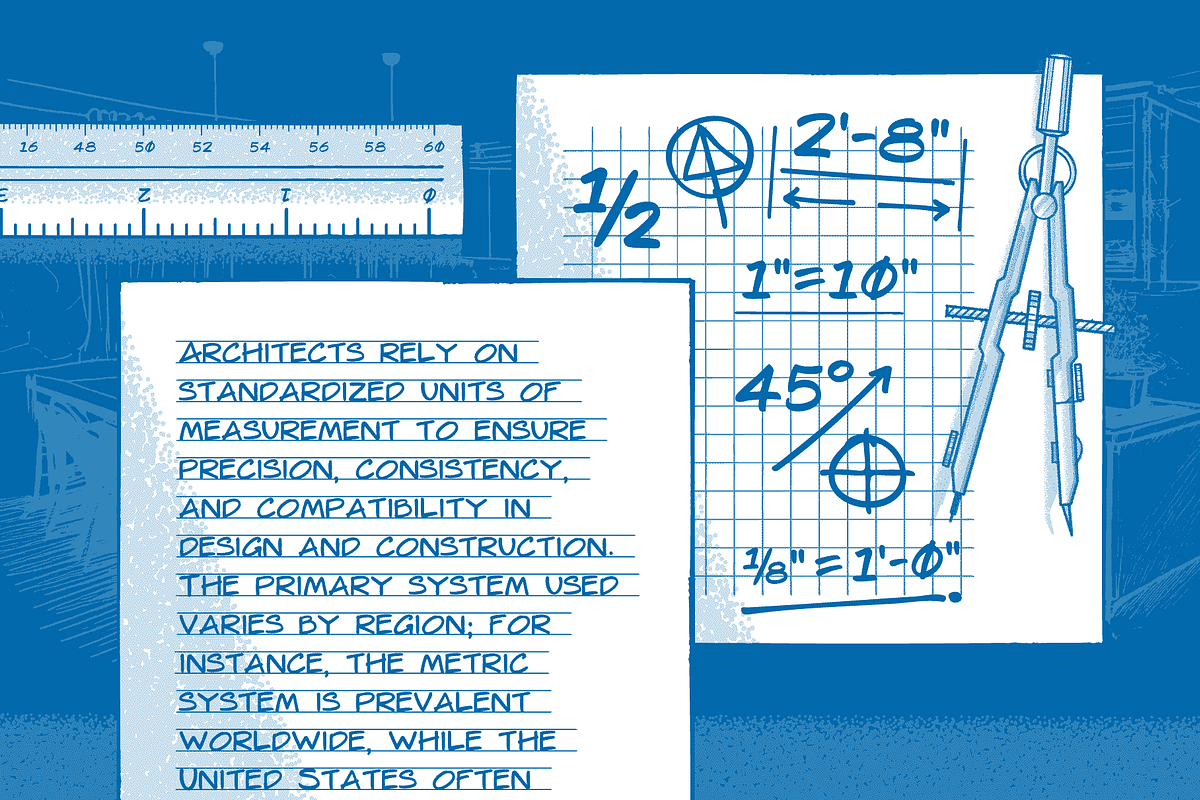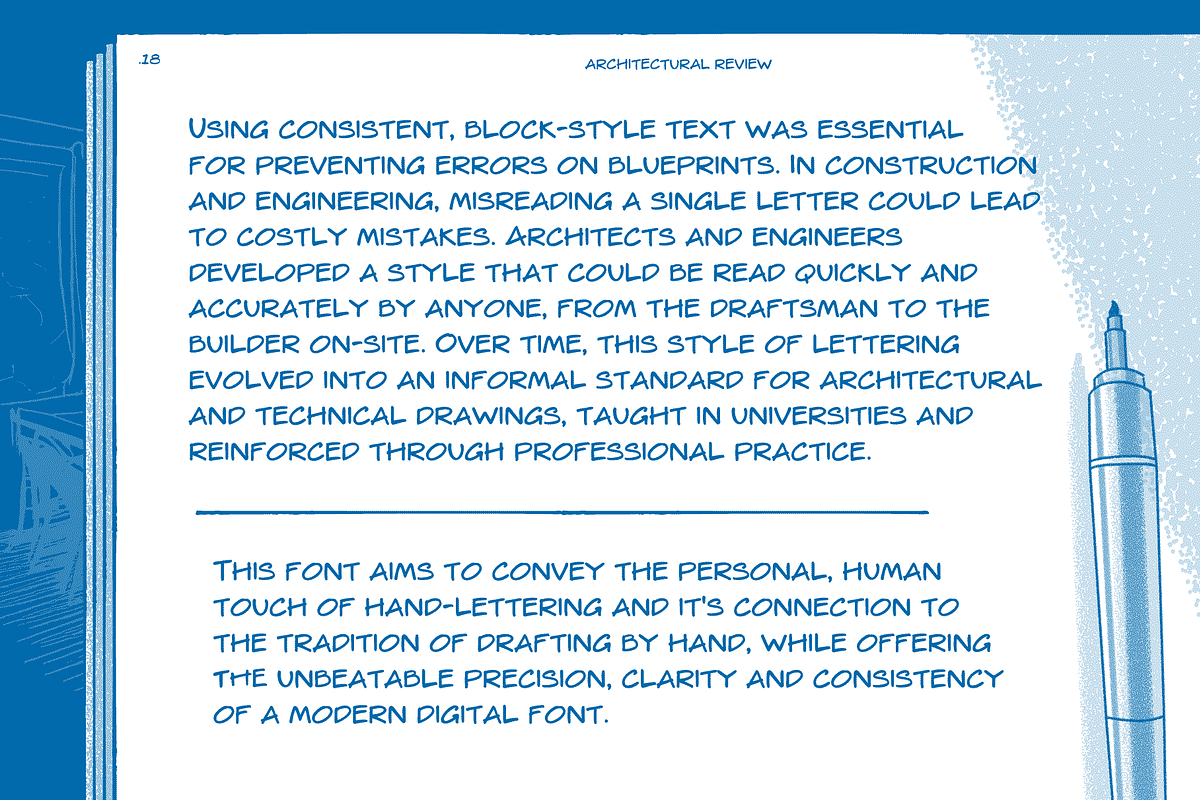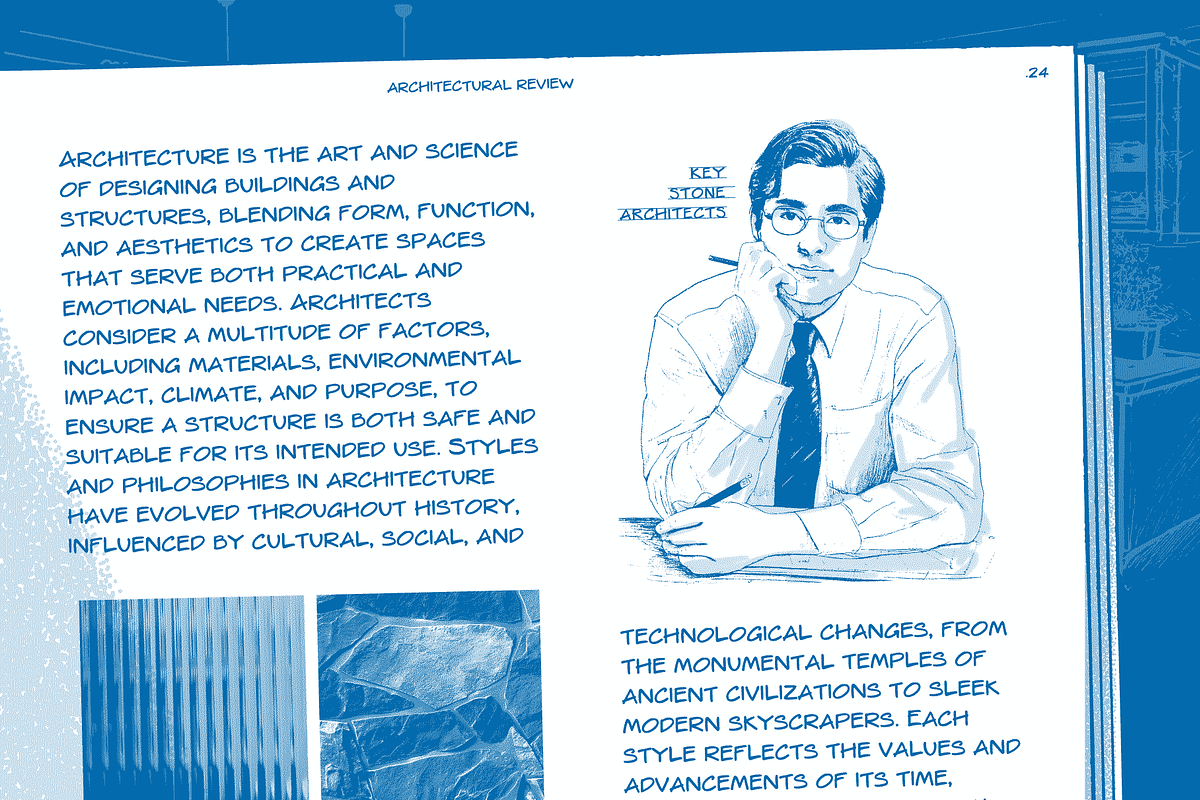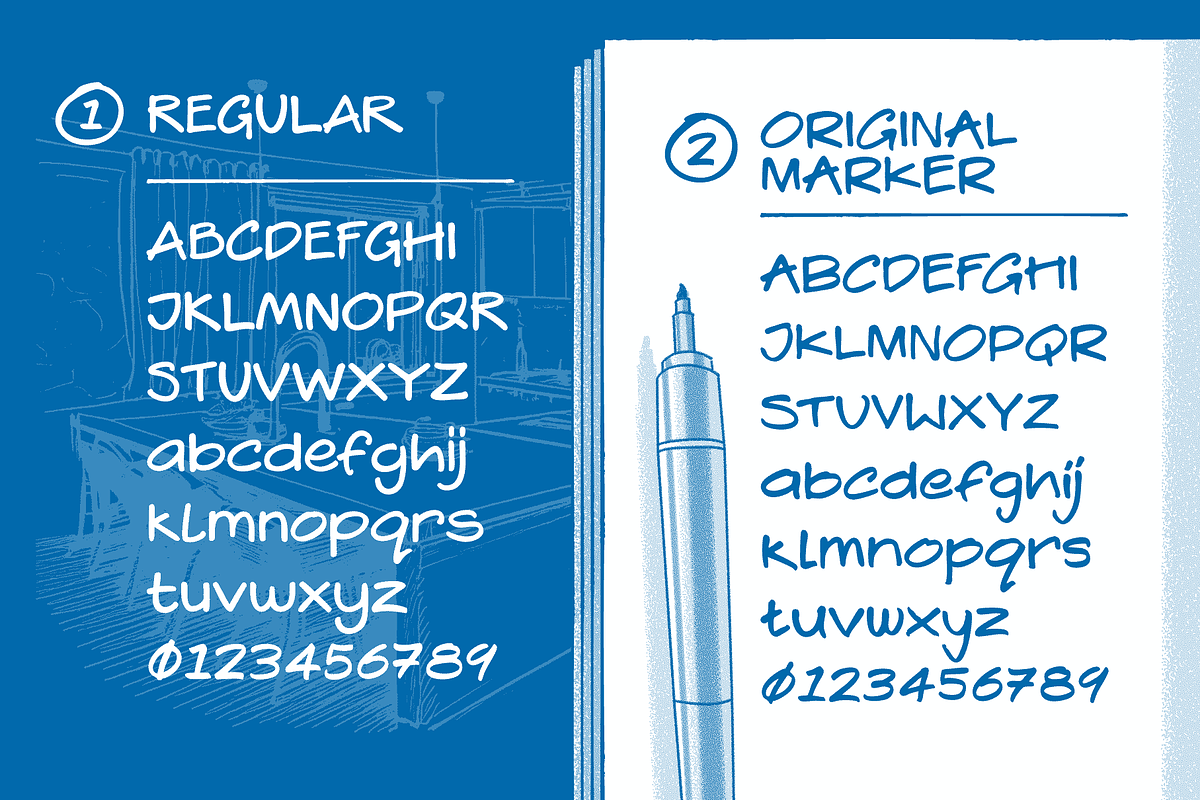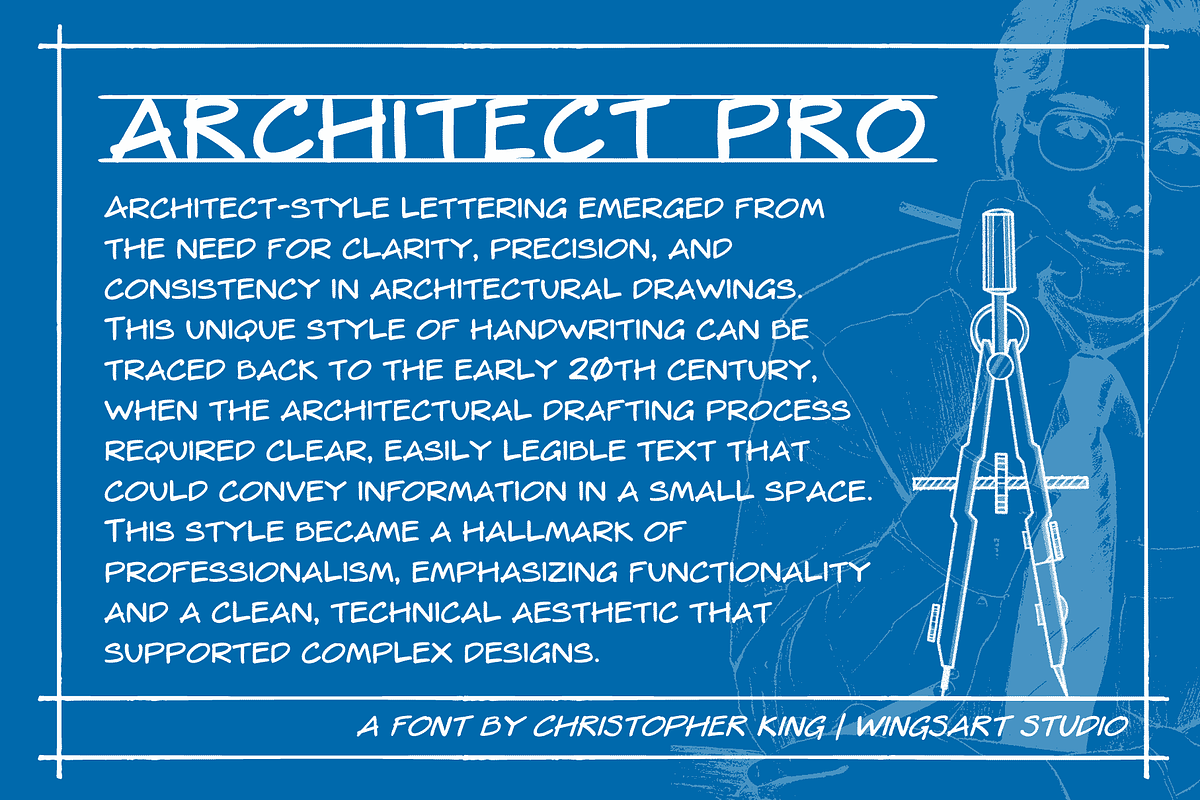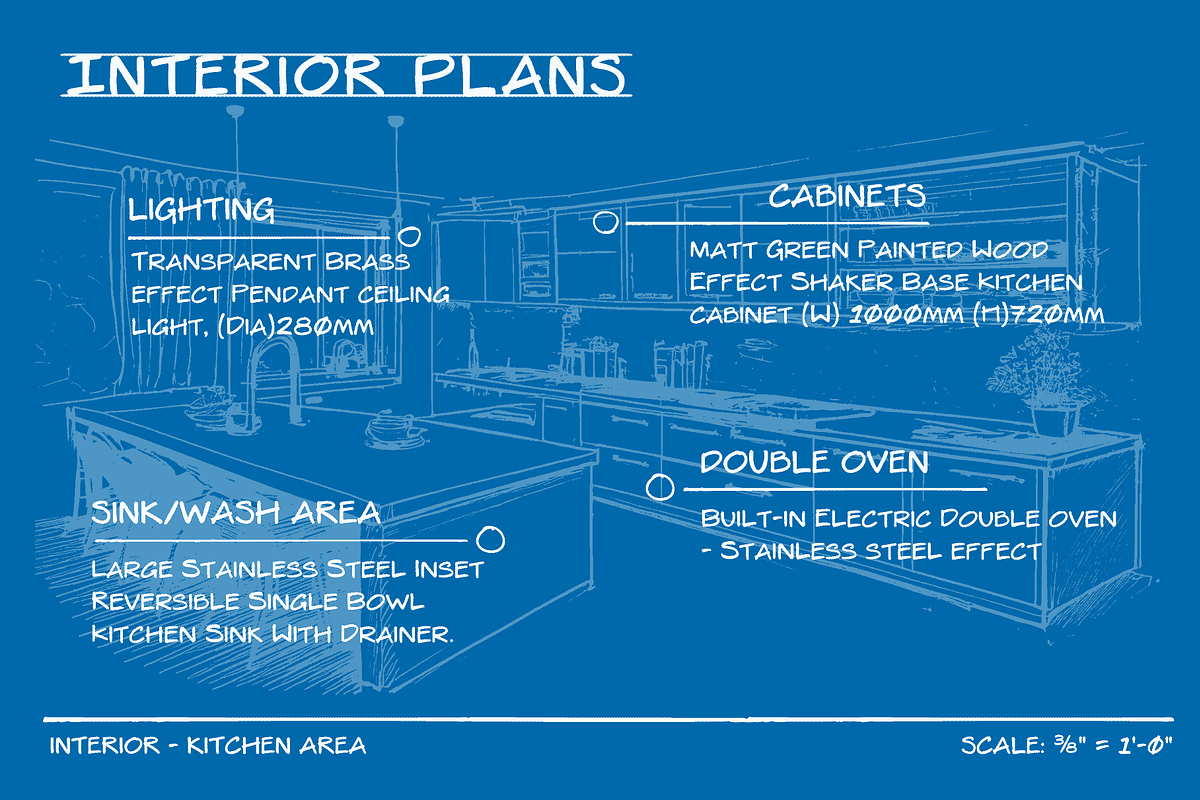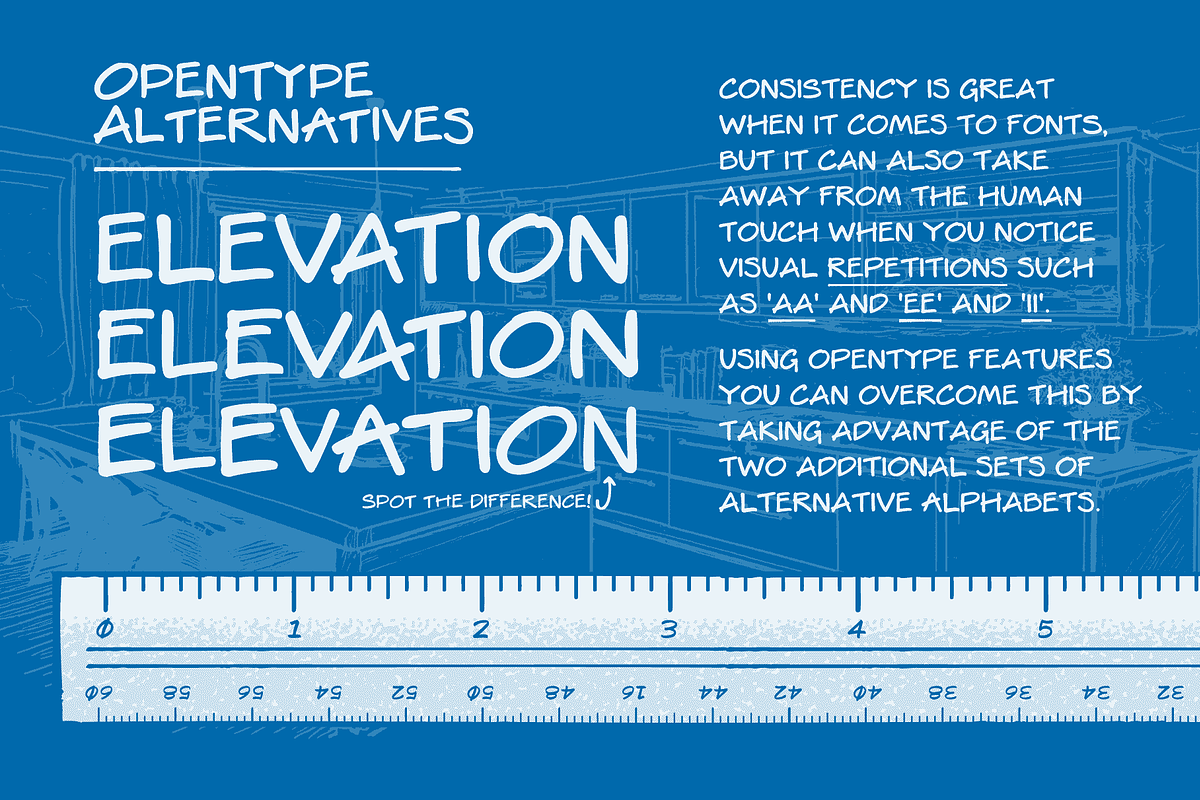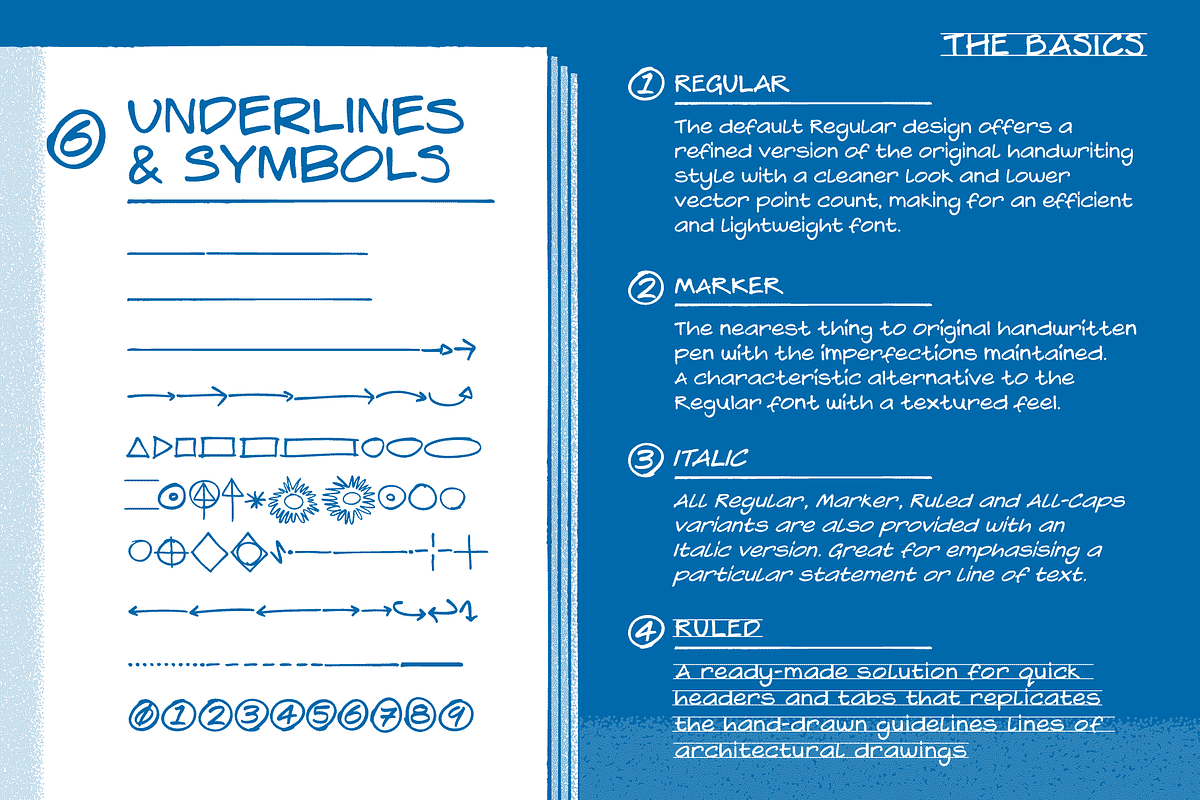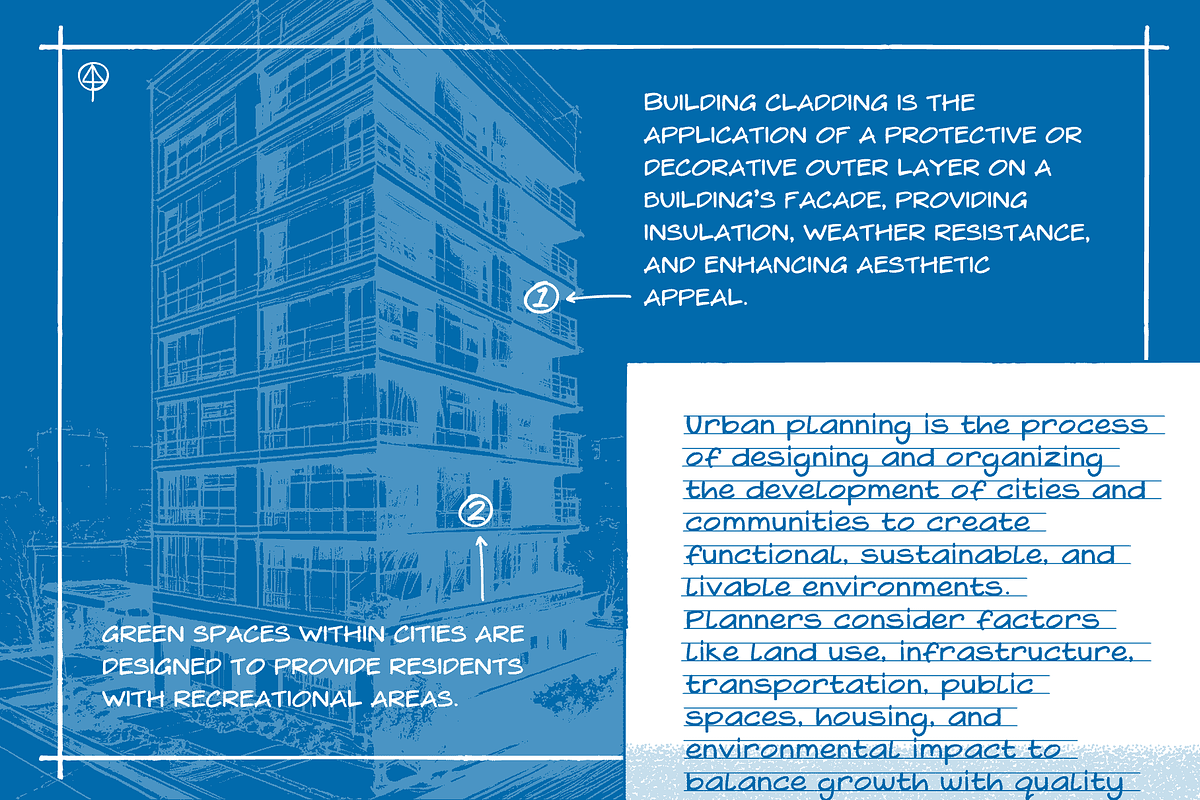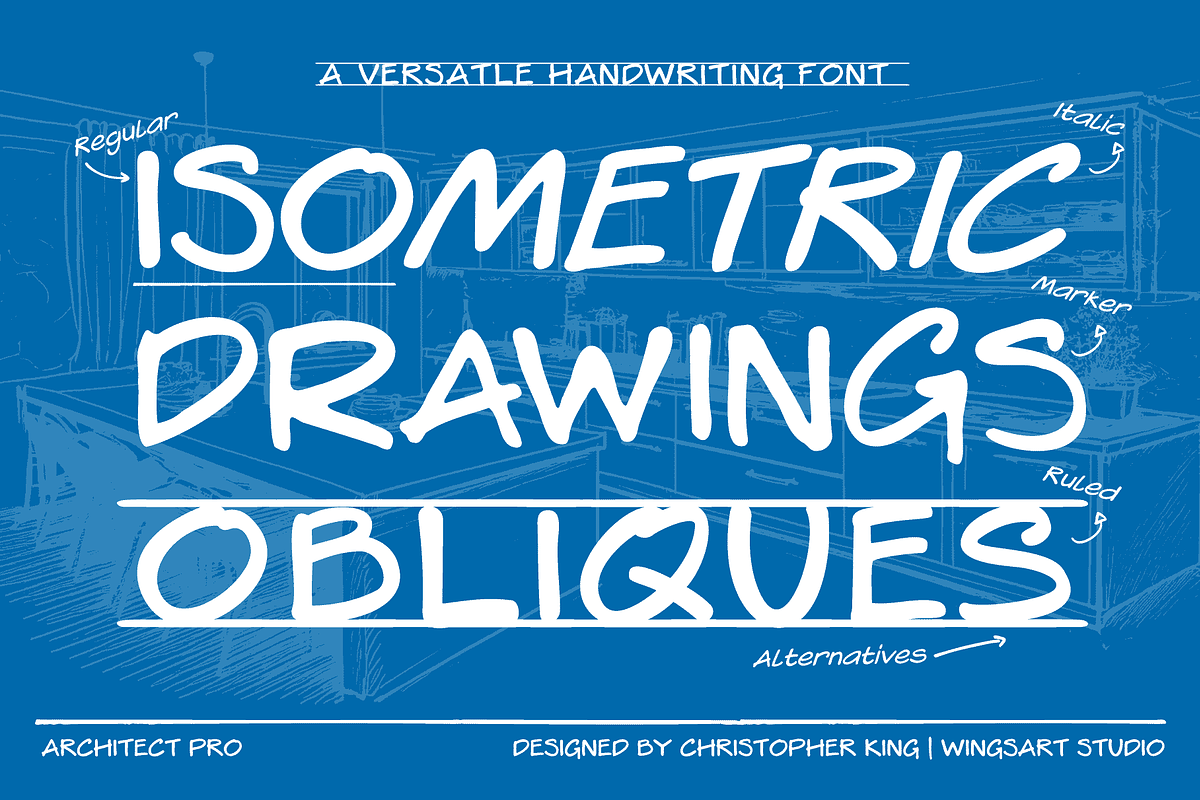
Architect Pro - Handwriting Font
A clear, legible handwriting font in the tradition of professional architectural design.
What would typically be considered Architect-style lettering emerged from the need for clarity, precision, and consistency in architectural drawings. This unique style of handwriting can be traced back to the early 20th century, when the architectural drafting process required clear, easily legible text that could convey information in a small space. This style became a hallmark of professionalism, emphasizing functionality and a clean, technical aesthetic that supported complex designs.
Before the advent of computer design, architectural drawings were done entirely by hand, so the ability to produce uniform, readable text quickly and consistently was essential. Lettering needed to be simple enough to be legible at small sizes, yet stylized to maintain an authoritative and formal look. Its minimal characteristics made it possible to produce easily readable text without sacrificing speed.
Using consistent, block-style text was essential for preventing errors on blueprints. In construction and engineering, misreading a single letter could lead to costly mistakes, so architects and engineers developed a style that could be read quickly and accurately by anyone, from the draftsman to the builder on-site. Over time, this style of lettering evolved into an informal standard for architectural and technical drawings, taught in universities and reinforced through professional practice.
This font aims to convey the personal, human touch of hand-lettering and its connection to the tradition of drafting by hand, while offering the unbeatable precision, clarity and consistency of a modern digital font.
Architect Pro comes in 4 distinct style categories, each with their own sets of alternatives and All-Caps versions totalling an amazing 29 fonts. It offers uppercase and lowercase characters, along with numerals, punctuation, symbols and language support, plus a collection of underlines, arrows and other symbols.
The Four Styles:
Regular: The default Regular design offers a refined version of the original handwriting style with a cleaner look and lower vector point count, making for an efficient and lightweight font.
Marker: The nearest thing to the original handwritten pen with the imperfections maintained.A characteristic alternative to the Regular font with a textured feel.
Italic: All Regular, Marker, Ruled and All-Caps variants are also provided with an Italic version. Great for emphasising a particular statement or line of text.
Ruled: A ready-made solution for quick headers and tabs that replicates the hand-drawn guidelines lines of architectural drawings.
Alternatives: Consistency is great when it comes to fonts, but it can also take away from the human touch when you spot visual repetitions such as 'AA' and 'EE' and 'II'. Using OpenType features you can overcome this by taking advantage of the two additional sets of alternative alphabets.
Architect Pro is a versatile font with a precise, legible and friendly appearance that honours the timeless draftsmanship inherent in this most respected profession.